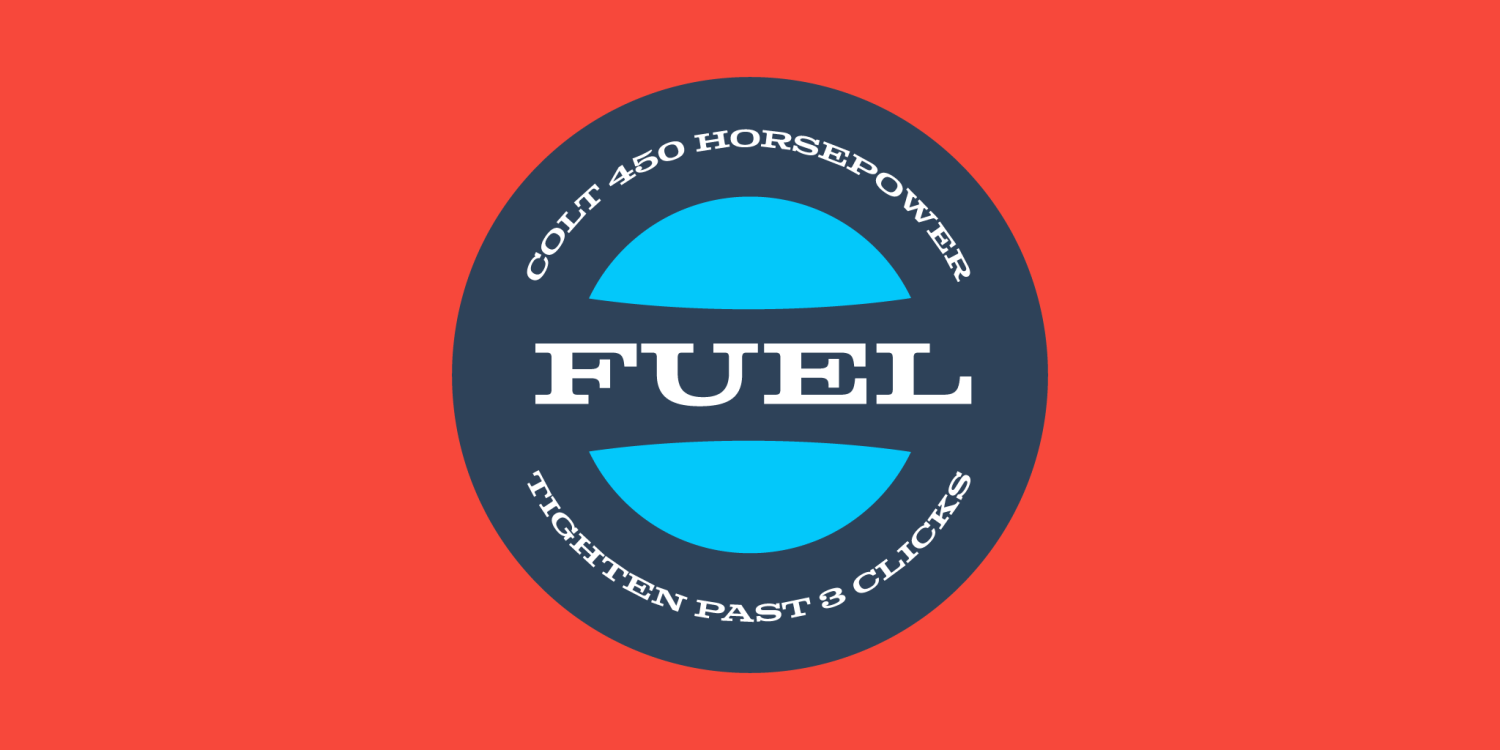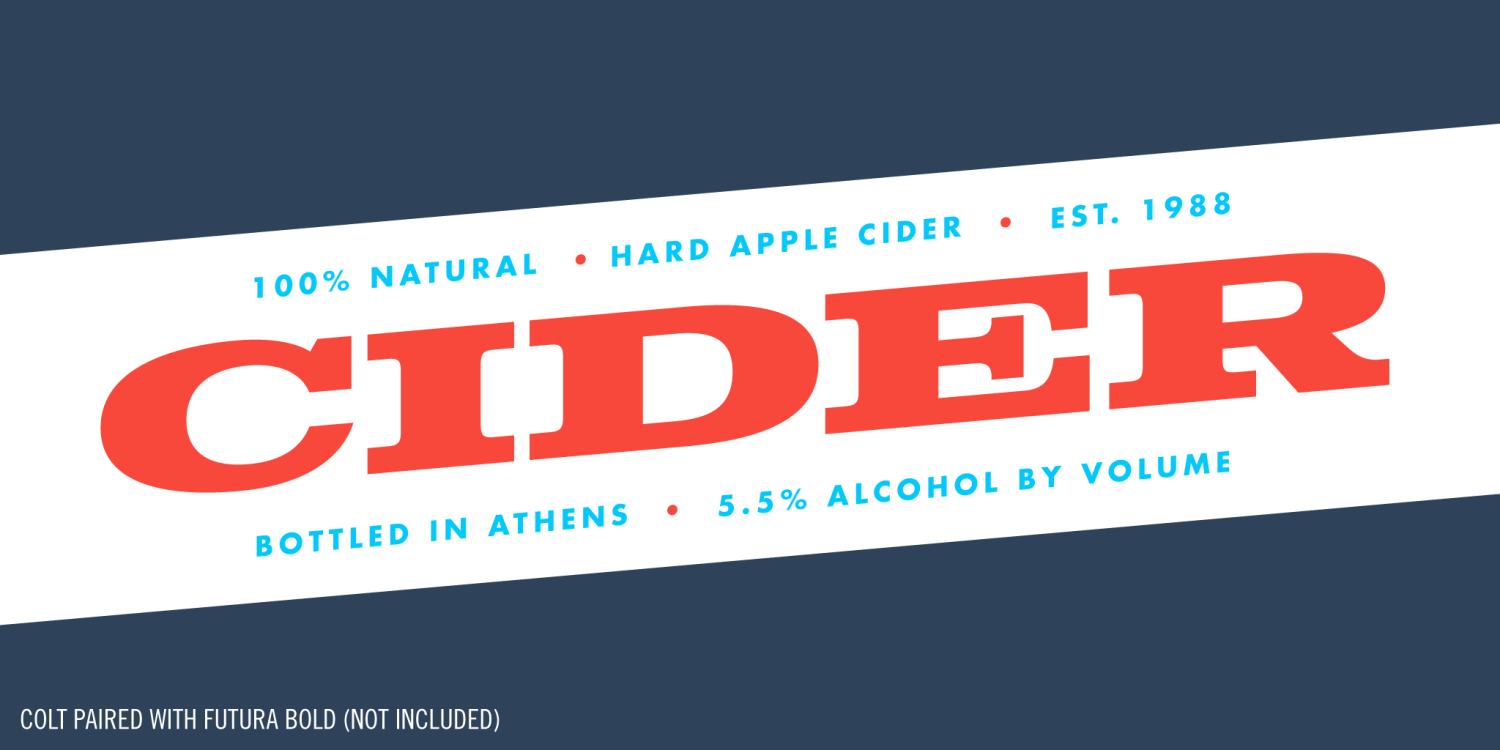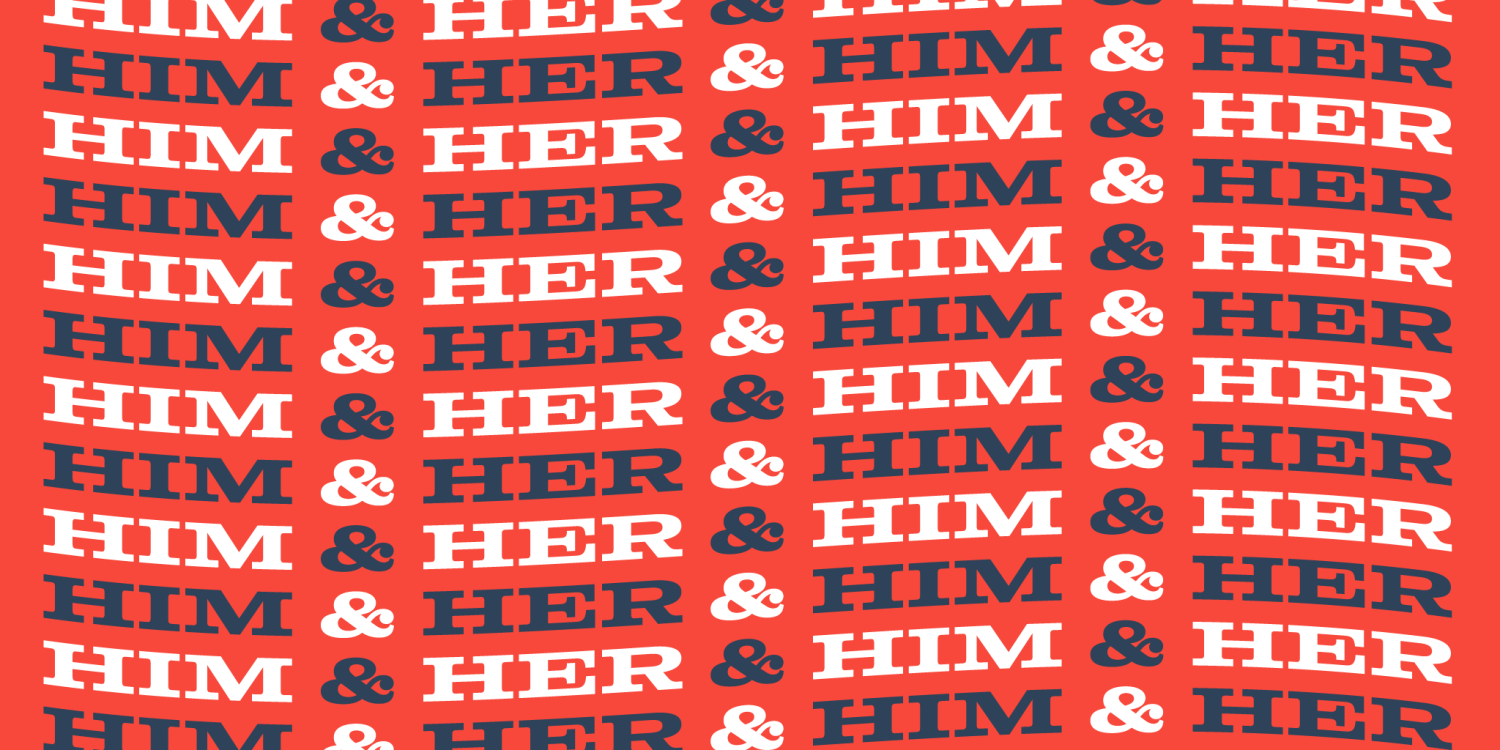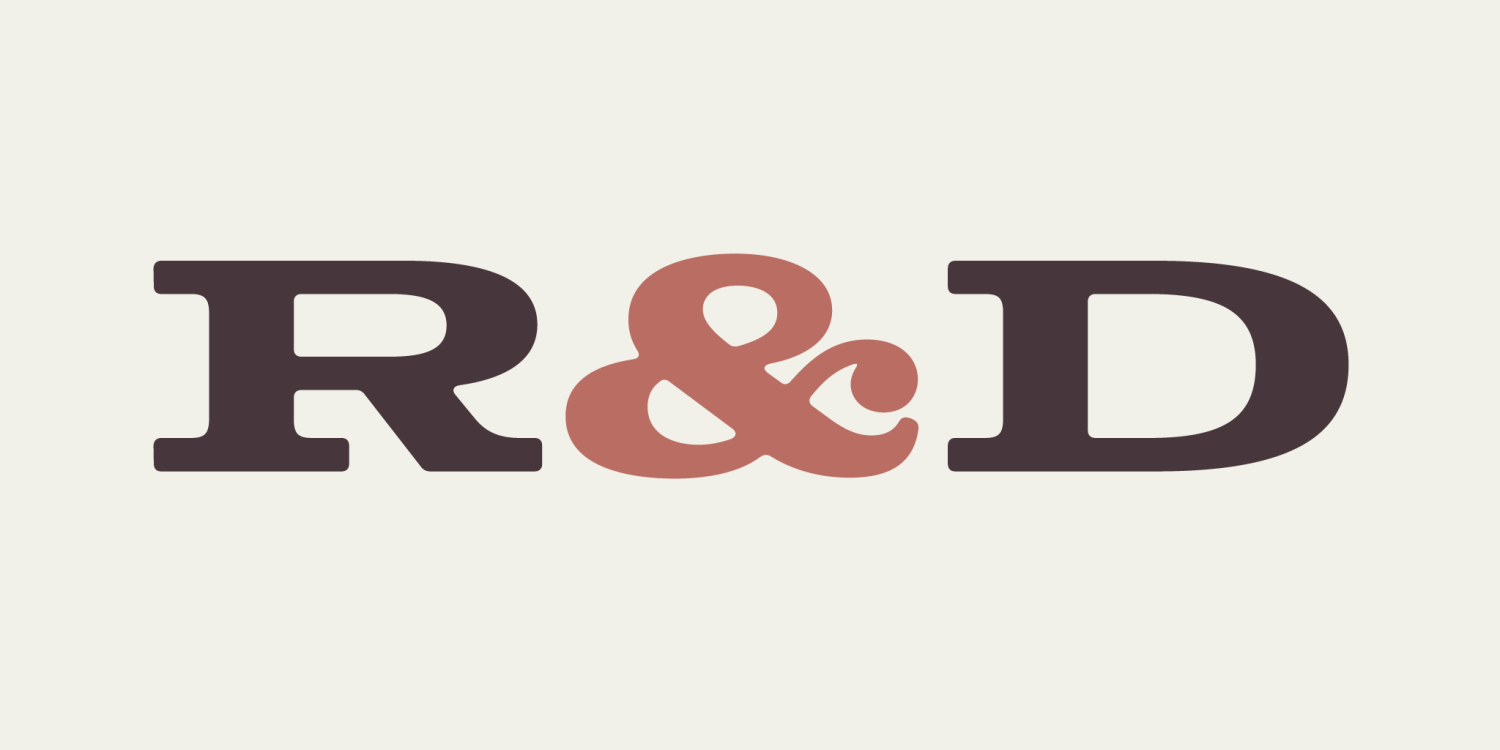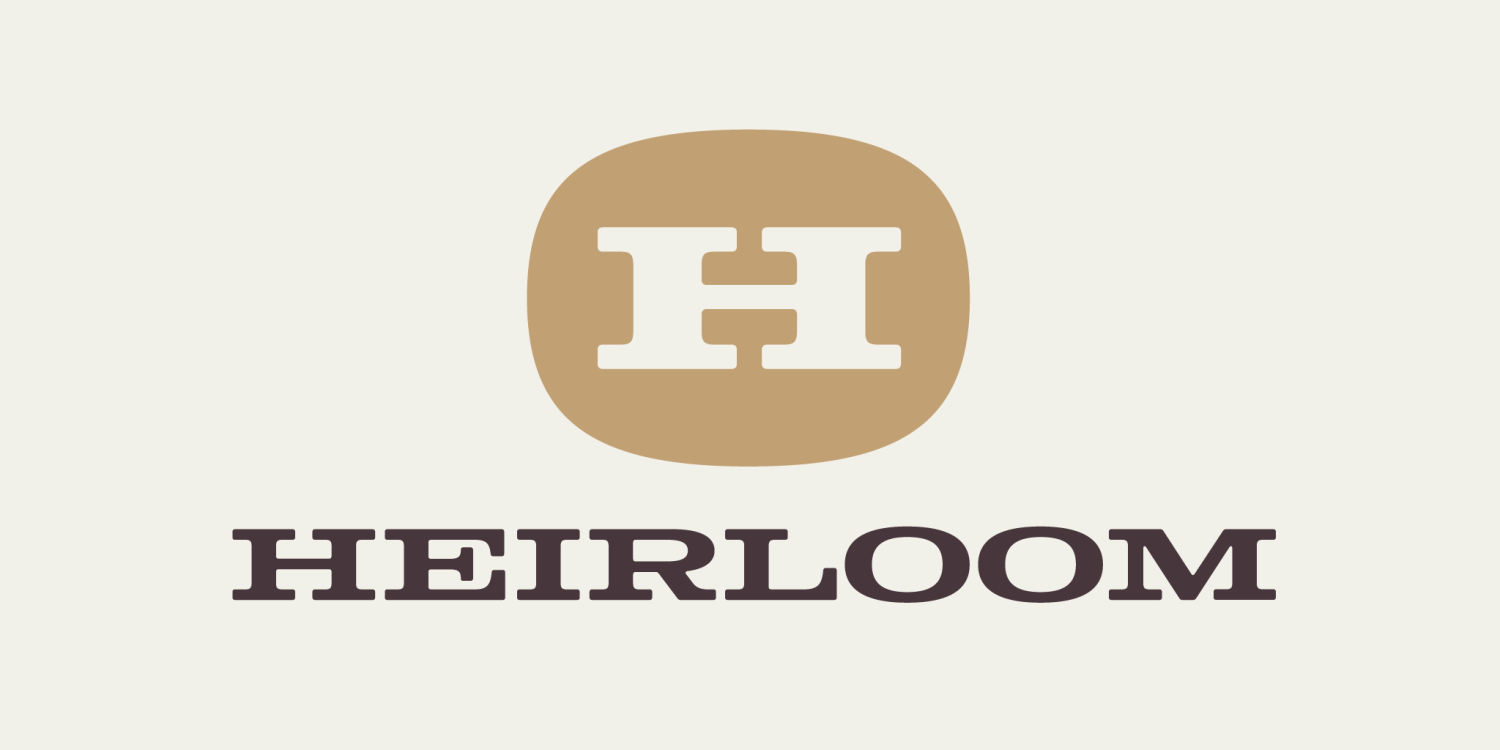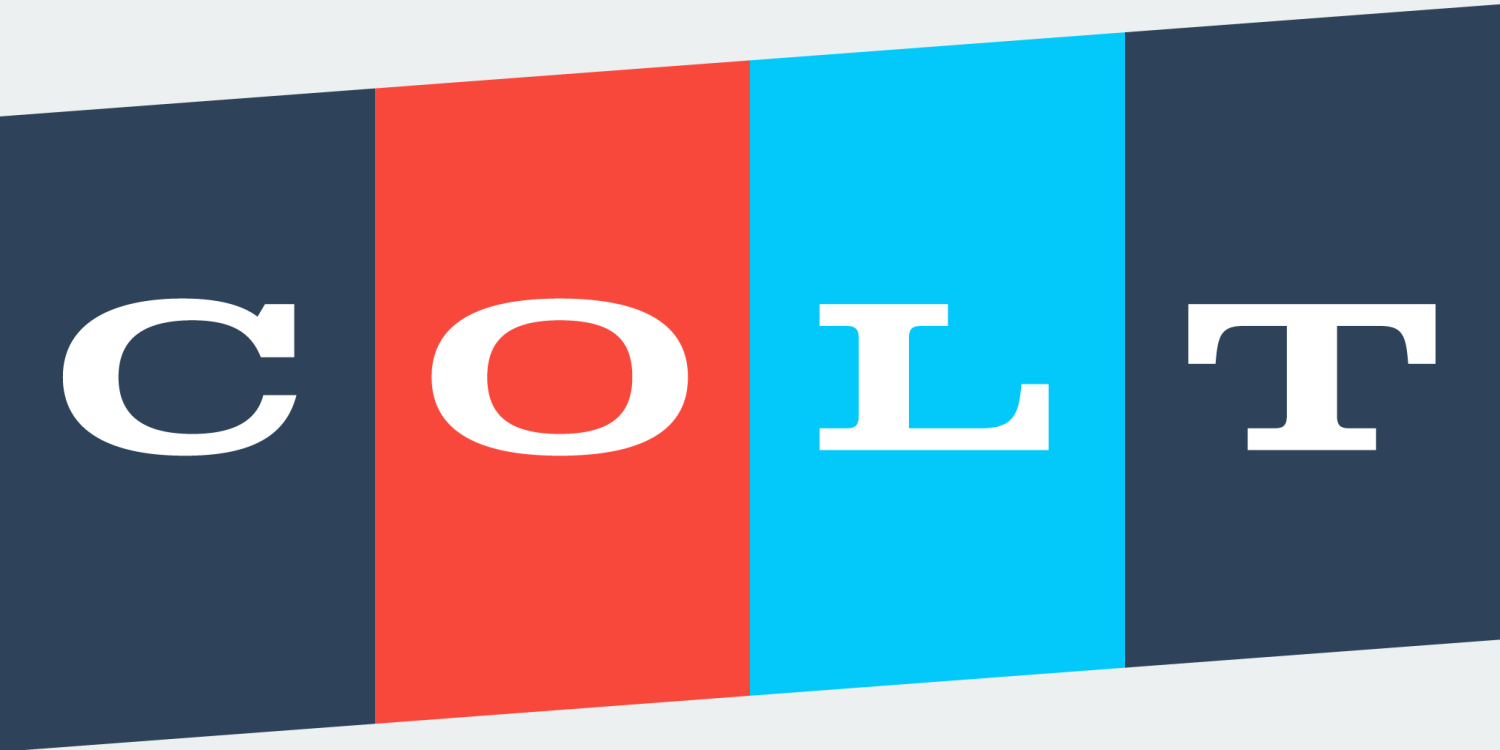
About Colt
Like a muscle car from decades ago, Colt aims to balance unbridled power and finesse. The wide letterforms arose out of a love for type found on motor vehicles made in the sixties. As the typeface took shape, the characters utilized the Clarendon style…